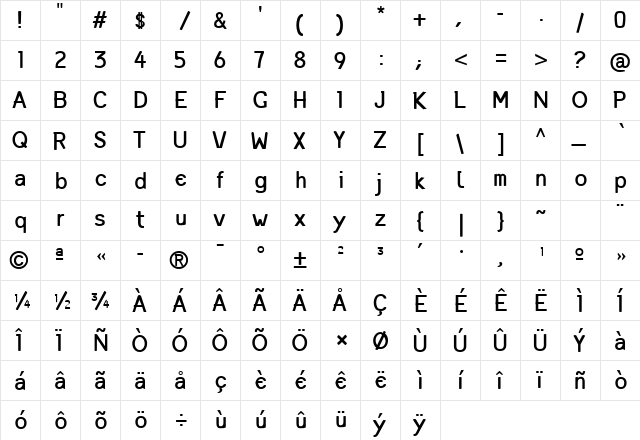
Mandinga Regular
Design Context for Mandinga Typeface
Mandinga is a composed and adaptable typeface that performs quietly and consistently across a wide range of design contexts.